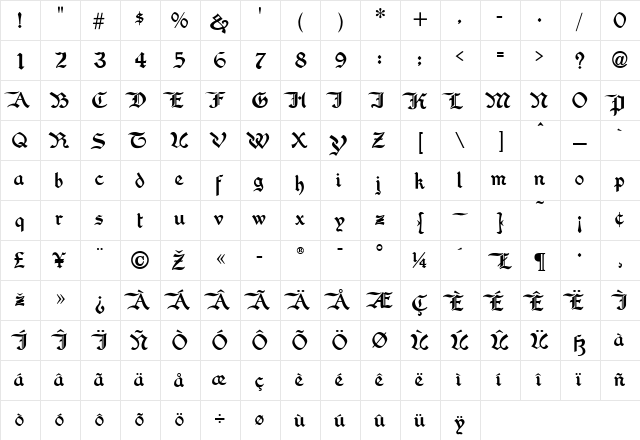
WashingtonText Regular
| Foundry | Digitized by Dan X. Solo. Software \ by Dover Publications, Inc |
Design Context for WashingtonText Typeface
WashingtonText takes a measured approach to typography — its balanced proportions and neutral character make it a reliable workhorse for both digital and print work.